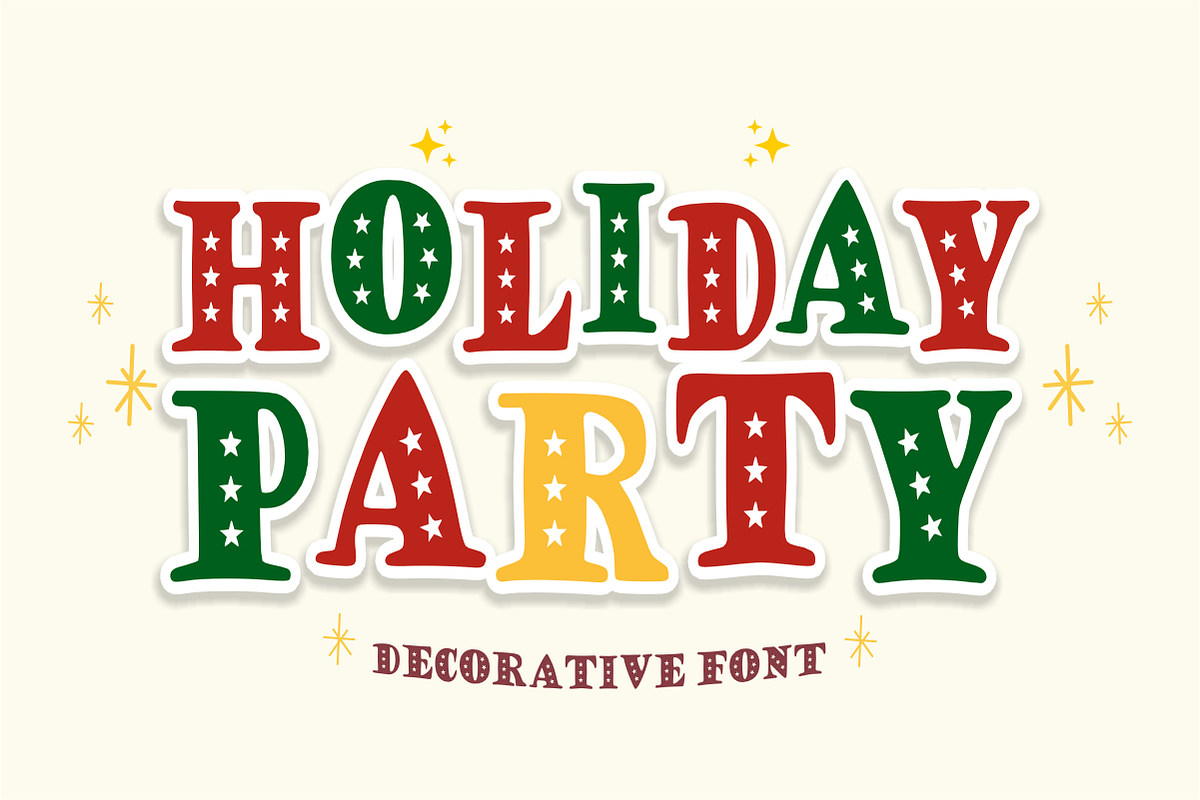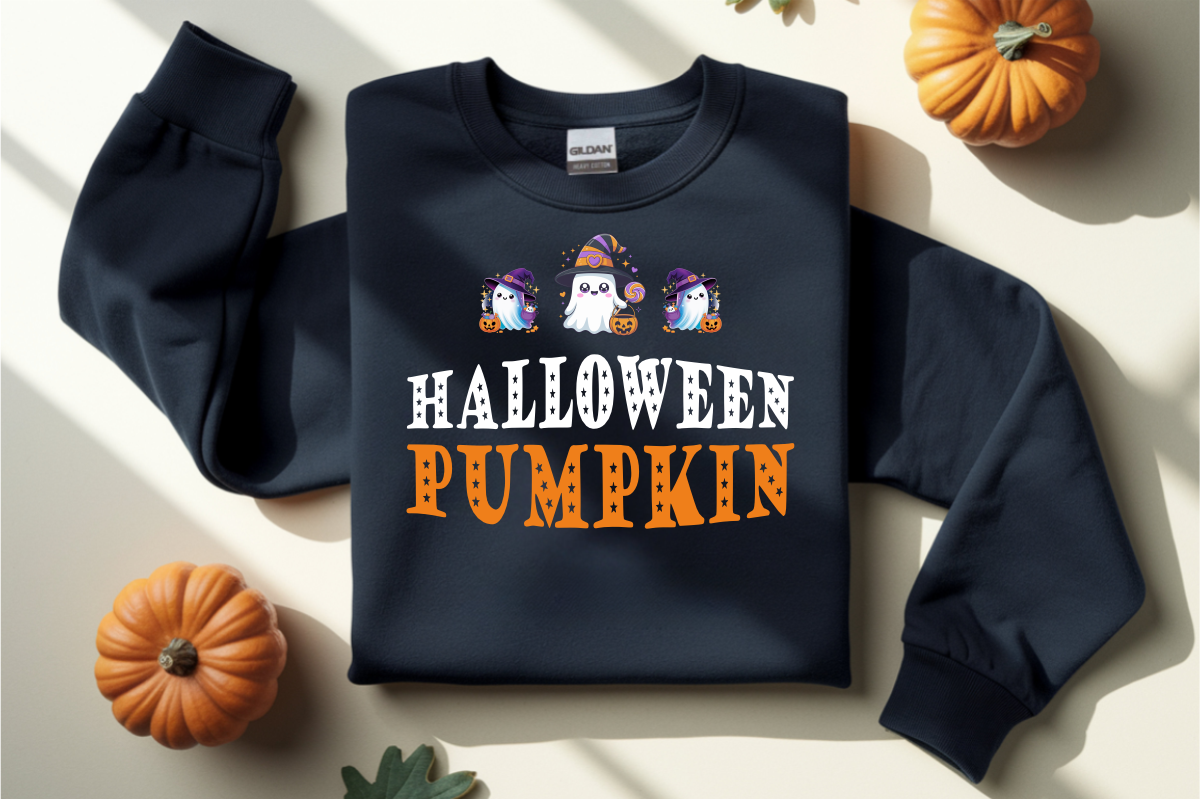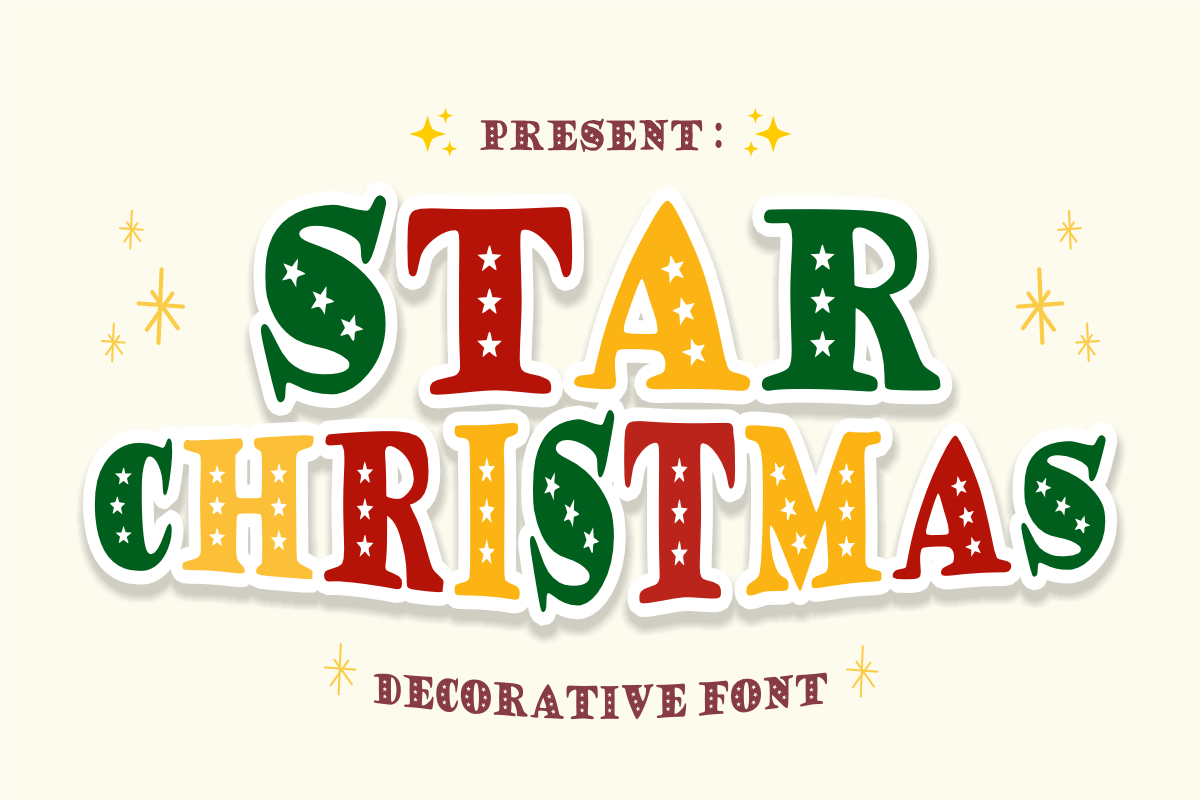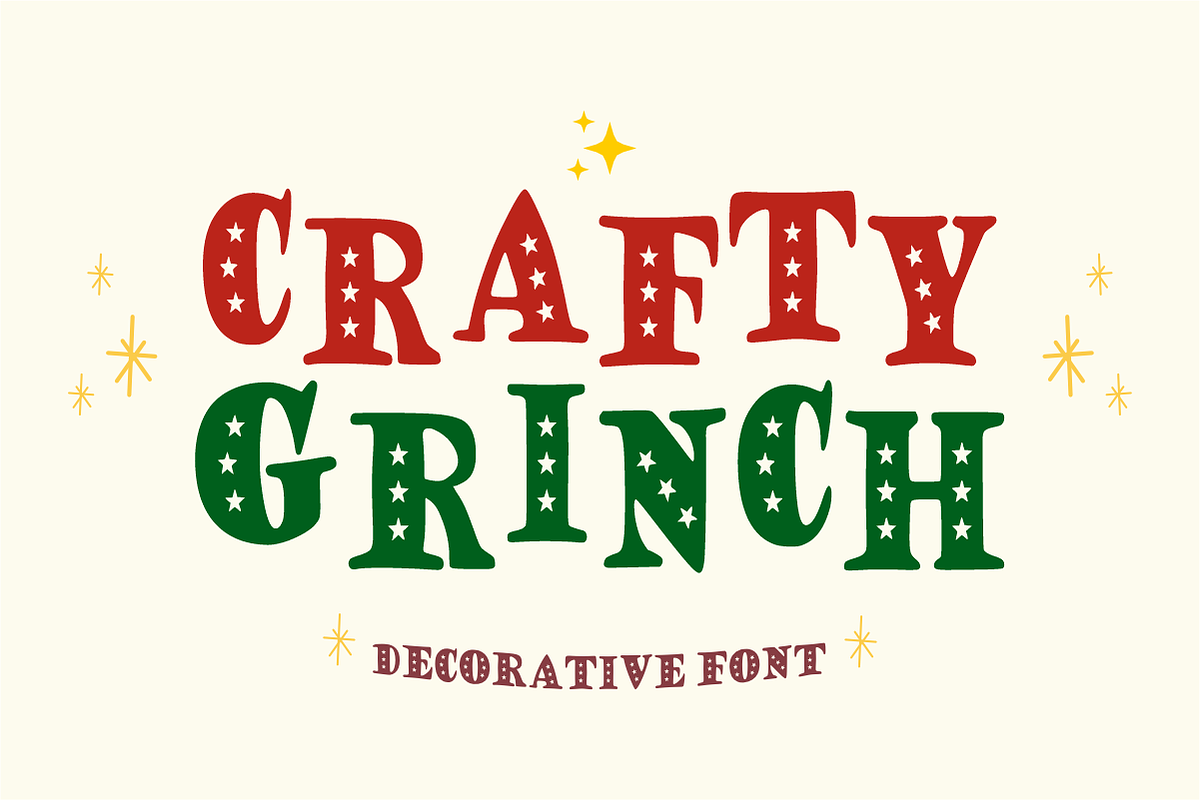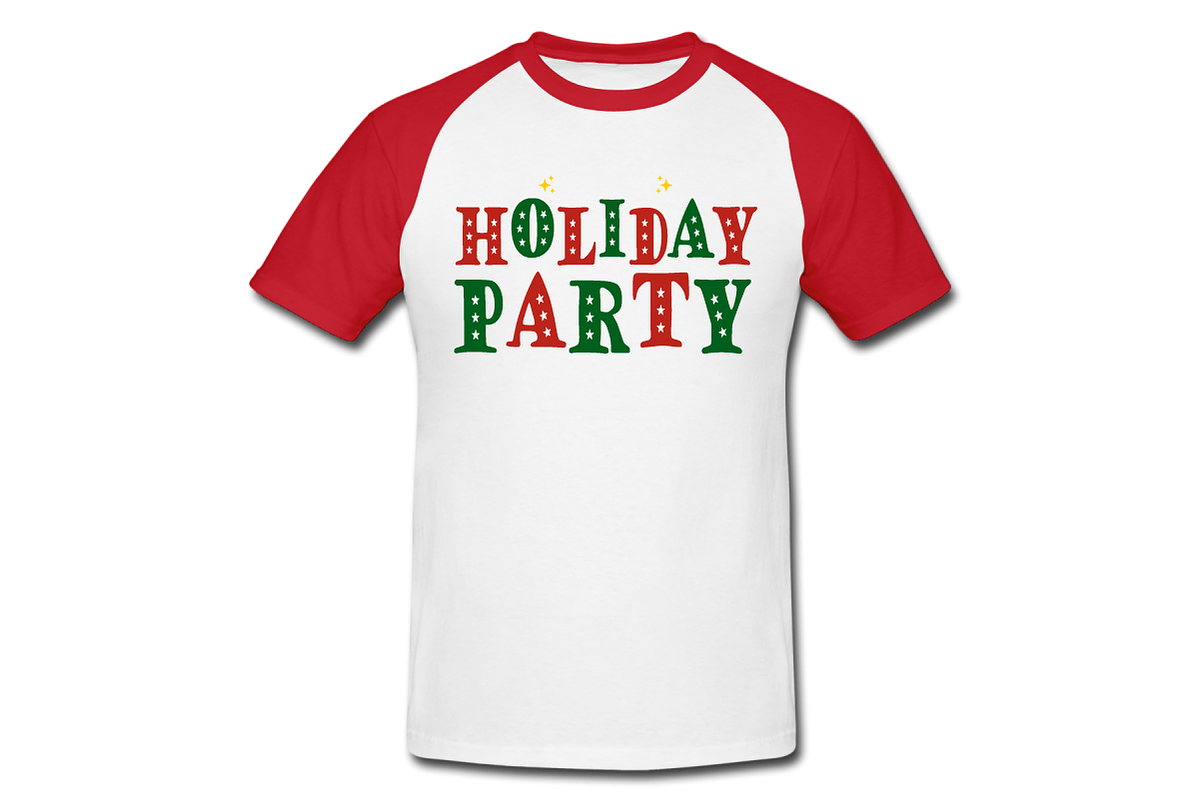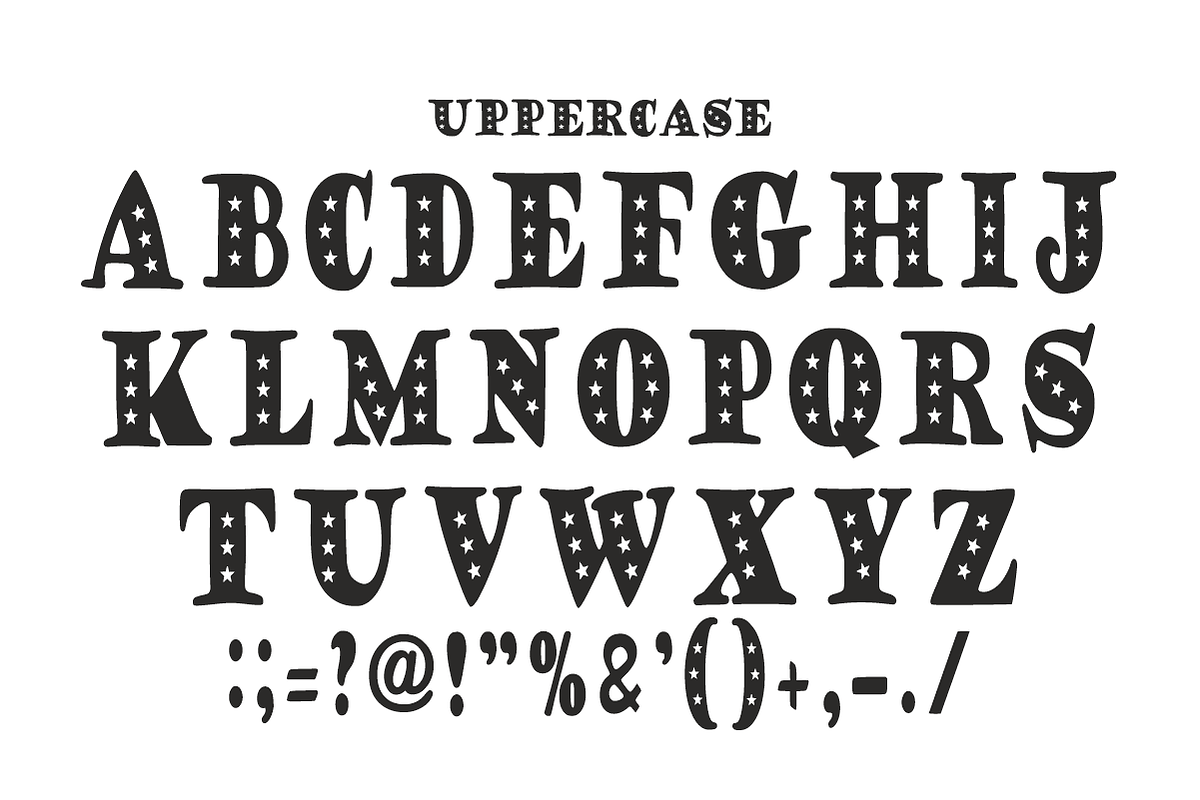
Star Christmas- Festive Holiday Font
Star Christmas - Festive Holiday Font
Star Christmas is a festive, decorative display font featuring bold, cheerful letterforms filled with magical white star cutout details and a clean white sticker-style outline. Overflowing with holiday warmth and vintage celebratory charm, this enchanting font adds a sparkling touch to your Christmas crafts, festive merch, and seasonal graphics. Every character is cleanly vectorized to guarantee high-resolution prints and smooth, effortless cutting on Cricut and Silhouette machines.
Uppercase Character Set
Numbers & Basic Punctuation